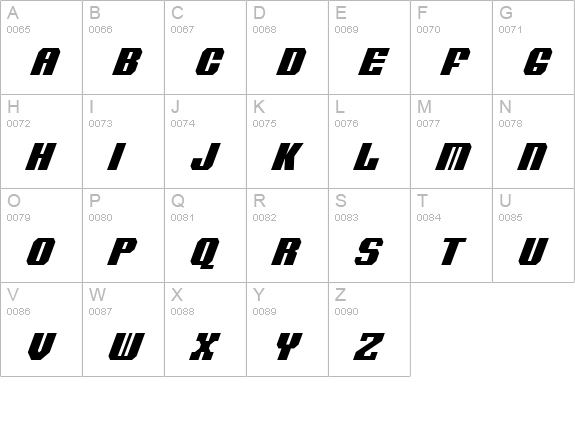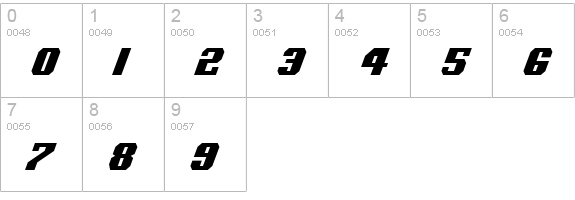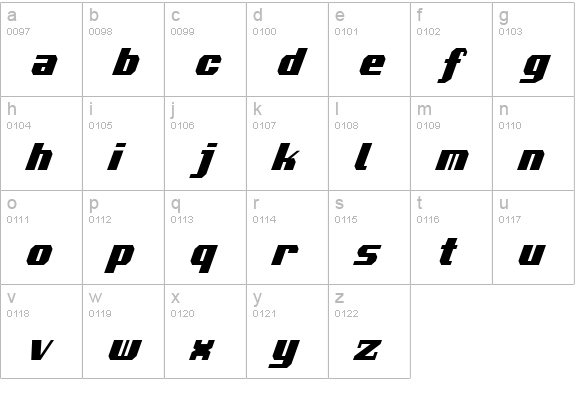
Voortrekker Condensed Italic is a distinctive, condensed-width, italic variant in the Voortrekker typeface family \xE2\x80\x94 well suited to design and typography projects.
Voortrekker Condensed Italic font is a sleek and modern typeface that exudes elegance and sophistication. Its condensed form is perfect for projects that require a streamlined and contemporary look. The italic style adds a touch of flair and dynamism to your designs, making them stand out from the crowd. What's even better is that Voortrekker Condensed Italic font is available for free download at FontsMarket.com. This means you can elevate your projects with this stunning font without having to spend a dime. Whether you're working on branding materials, editorial designs, or digital content, Voortrekker Condensed Italic font is sure to make a lasting impression. Download it today and take your designs to the next level!